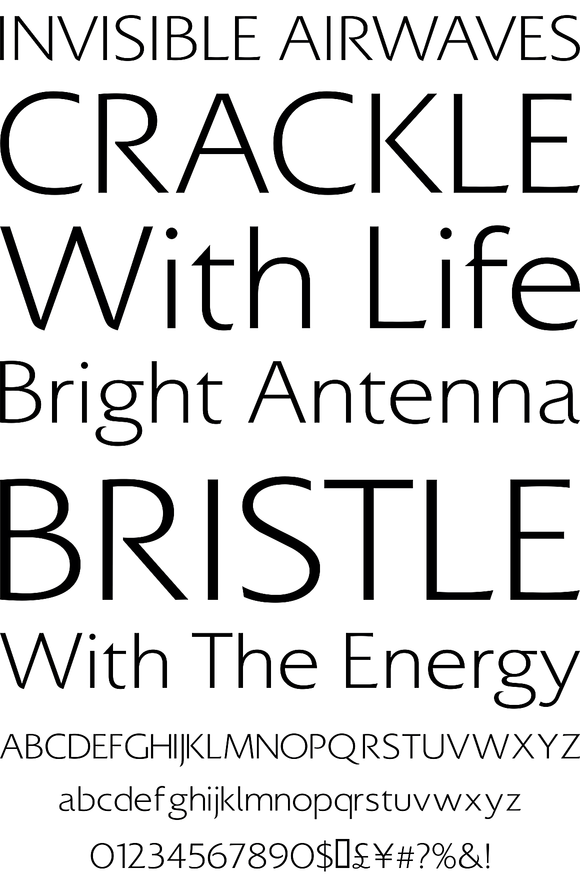
Colosseum
Foundry: Alan Meeks
Although a sans serif, Colesseum owes its style to the original Trajan Roman form. Borrowing some characteristics from Friz Quadrata, in its san serif form it is more adaptable to text usage whilst still having a modern and original look which works well in headlines.